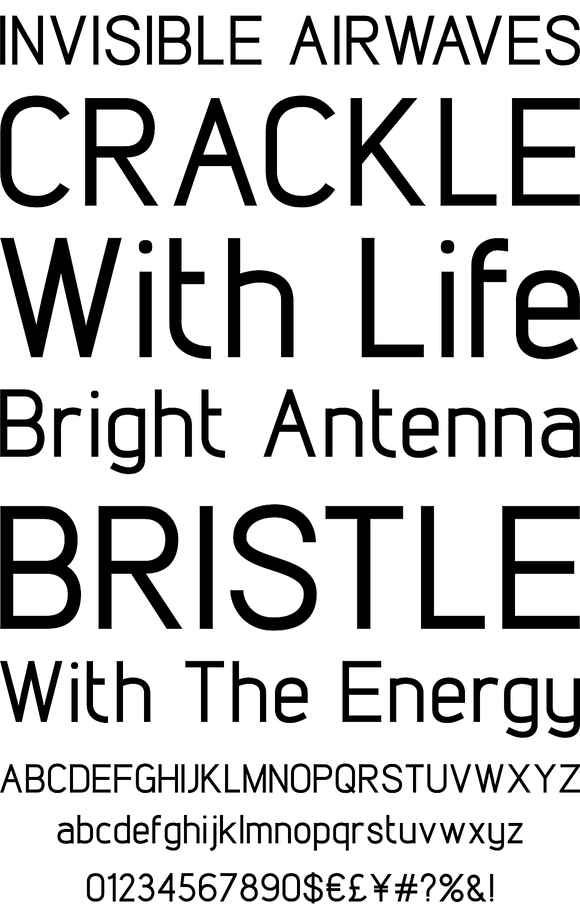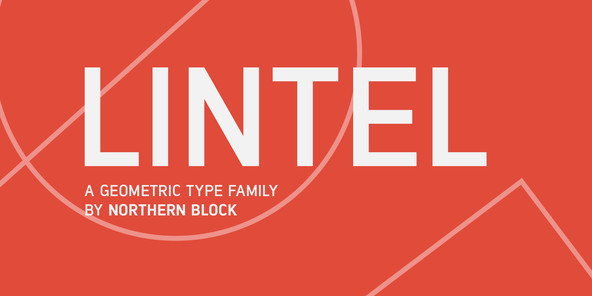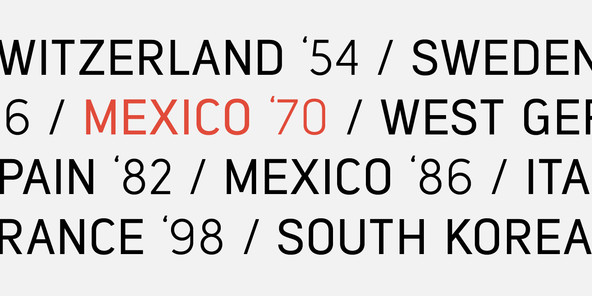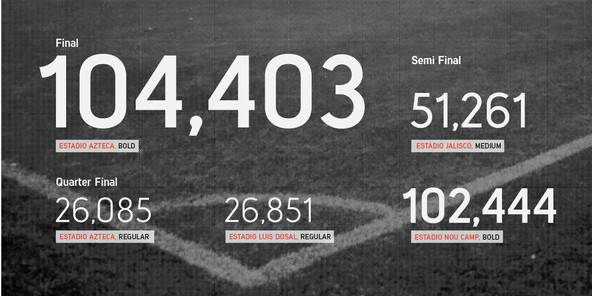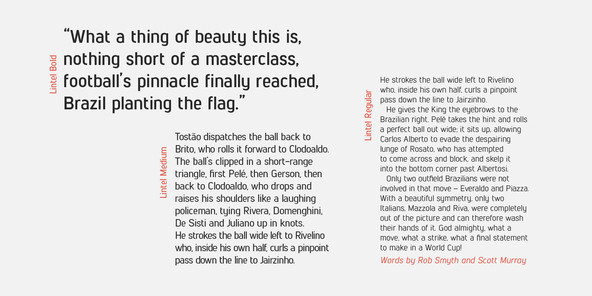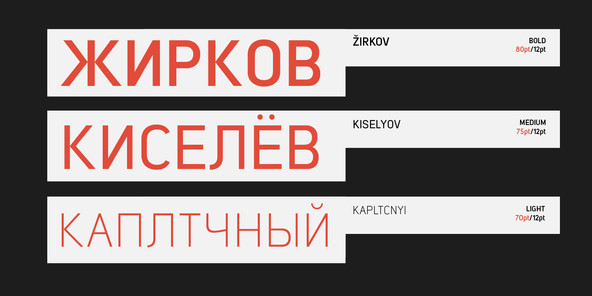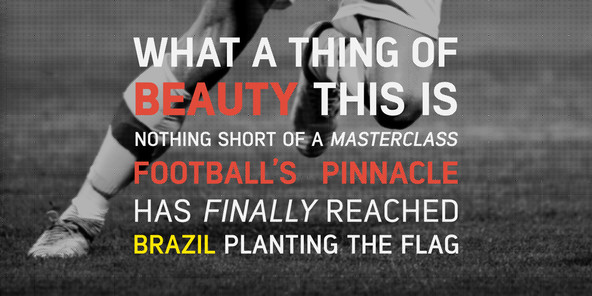
A modern san serif typeface with a pure clean line form. The idea has been to design a font with a proportioned and balanced structure that is applicable to a wide variety of uses. Details include 6 weights with italics, a full character set, manually edited kerning and Euro symbol.